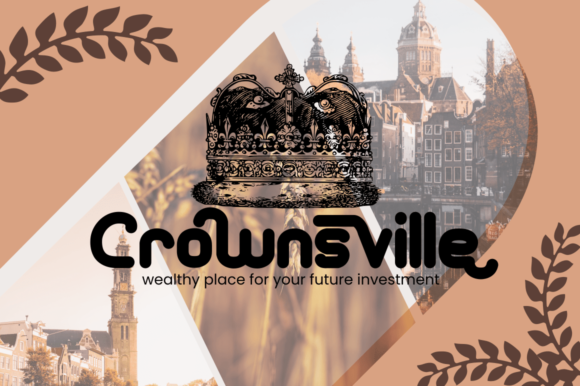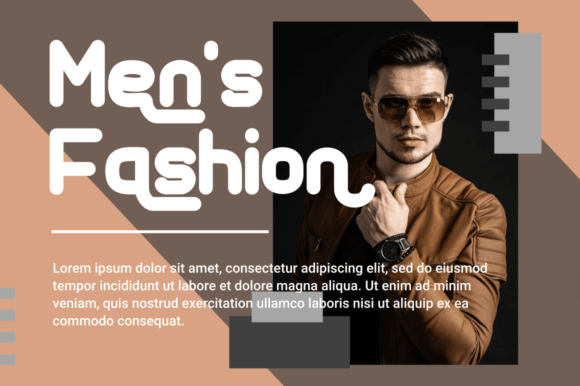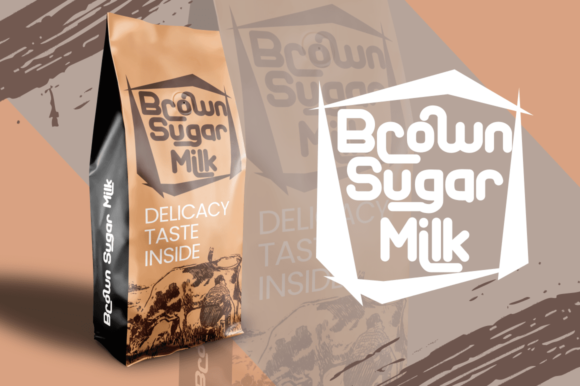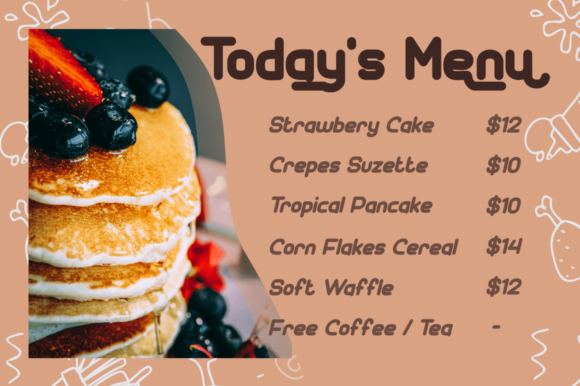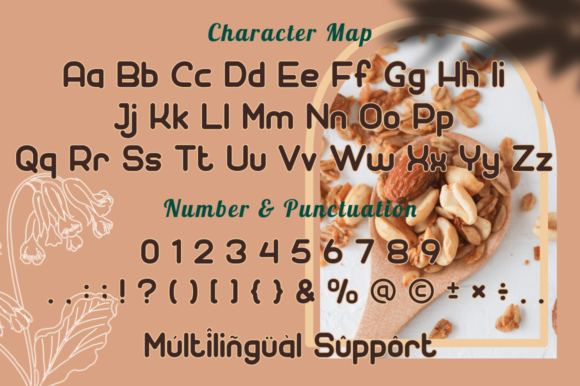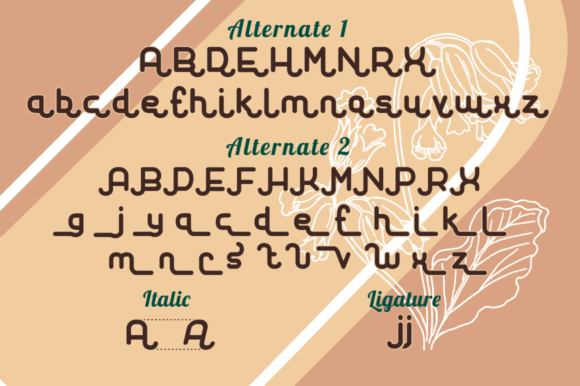
Belvesnut Sans Font: Elevate Your Designs with a Cool and Whimsical Display Font
In the world of typography, fonts play a crucial role in conveying the tone and personality of a design. For designers and crafters looking to add a touch of whimsy and coolness to their creations, Belvesnut Sans Font is an excellent choice. This display font is not only visually appealing but also highly versatile, making it perfect for a wide range of projects.
What Makes Belvesnut Sans Font Special?
Belvesnut Sans Font stands out from the crowd with its unique blend of cool and whimsical characteristics. Its design is carefully crafted to add a playful touch to any project, making it ideal for designers who want to create eye-catching and engaging content. Whether you’re working on a branding project, crafting a social media post, or designing a digital product, Belvesnut Sans Font can help you achieve your desired outcome.
One of the key features that make Belvesnut Sans Font so user-friendly is its PUA (Private Use Area) encoding. This means that all glyphs and swashes are easily accessible, allowing designers to experiment with different combinations and create unique designs with ease. With PUA encoding, you can say goodbye to tedious font editing and hello to a seamless design experience.
Endless Design Possibilities with Belvesnut Sans Font
The versatility of Belvesnut Sans Font is one of its most significant advantages. This font can be used confidently in a variety of projects, including:
- Branding and Logo Design: Create a memorable brand identity with Belvesnut Sans Font’s unique and playful design.
- Social Media Graphics: Add a touch of whimsy to your social media posts and stories with this eye-catching font.
- Digital Products: Use Belvesnut Sans Font to create engaging and interactive digital products, such as ebooks, presentations, and more.
- Crafting and DIY Projects: Add a personal touch to your crafting and DIY projects with Belvesnut Sans Font’s cool and whimsical design.
Tips for Getting the Most Out of Belvesnut Sans Font
To truly unleash the potential of Belvesnut Sans Font, here are a few tips to keep in mind:
- Experiment with Different Sizes: Belvesnut Sans Font looks great in various sizes, so don’t be afraid to experiment and find the perfect fit for your design.
- Play with Glyphs and Swashes: Take advantage of the font’s PUA encoding and explore the different glyphs and swashes to add a unique touch to your design.
- Pair it with Other Fonts: Combine Belvesnut Sans Font with other fonts to create a visually appealing and harmonious design.
Belvesnut Sans Font is a cool and whimsical display font that can elevate your designs to the next level. With its PUA encoding and versatile design, this font is perfect for designers and crafters looking to add a touch of personality to their creations. Whether you’re working on a branding project, social media graphics, or digital products, Belvesnut Sans Font is an excellent choice. So why wait? Add Belvesnut Sans Font to your design toolkit today and get ready to be amazed by the outcome!